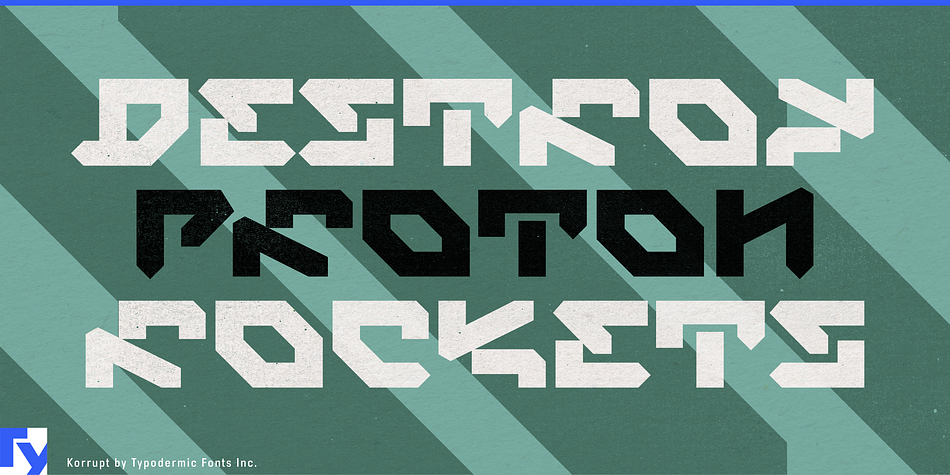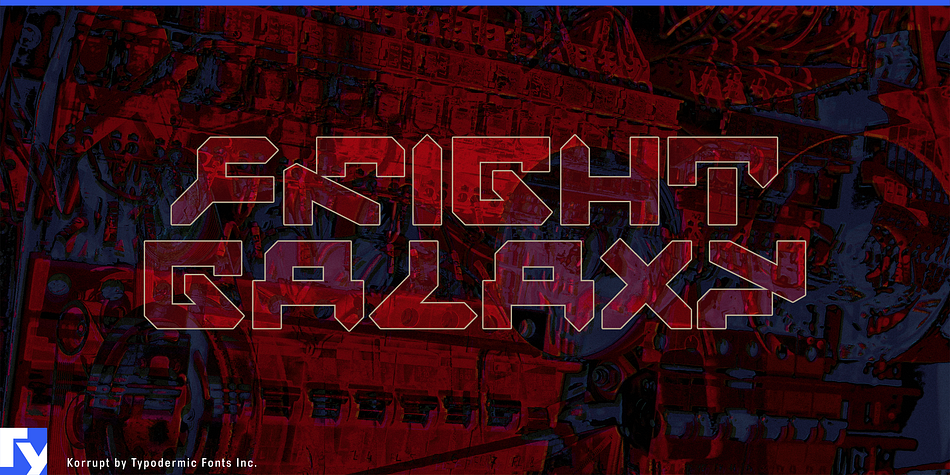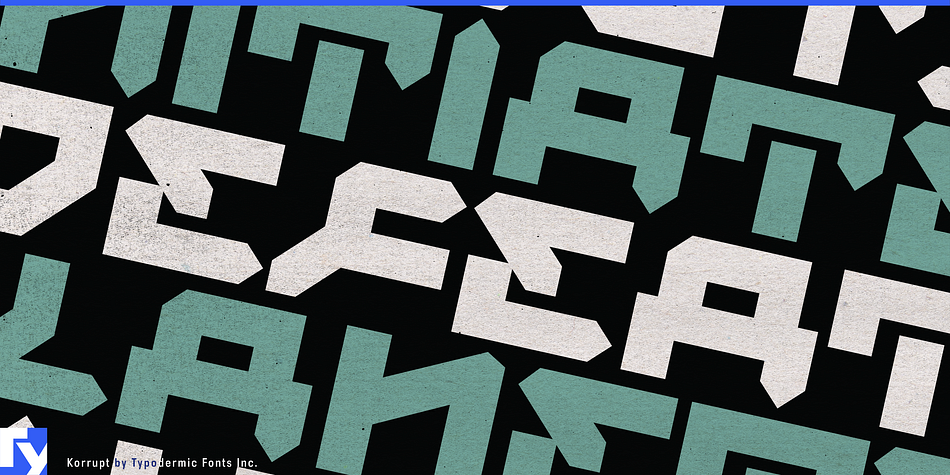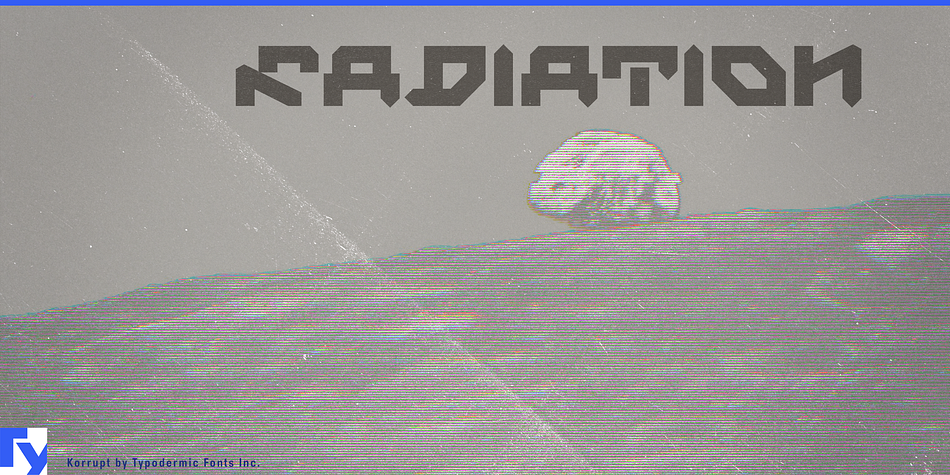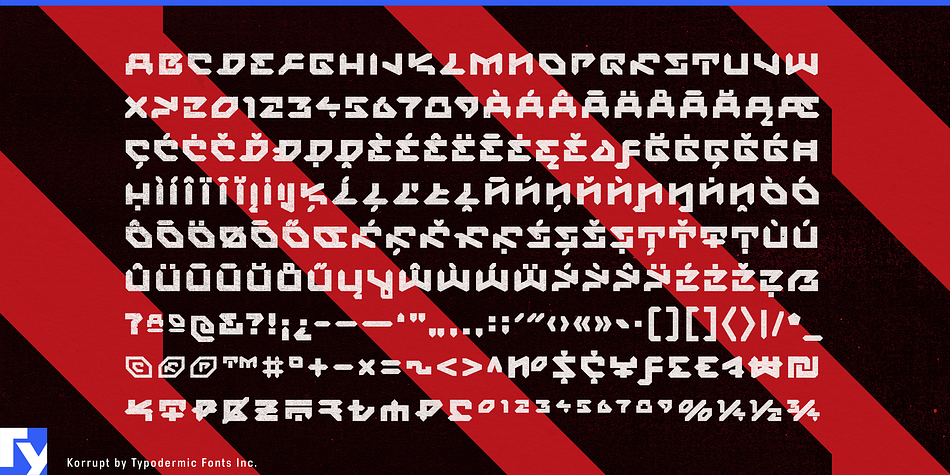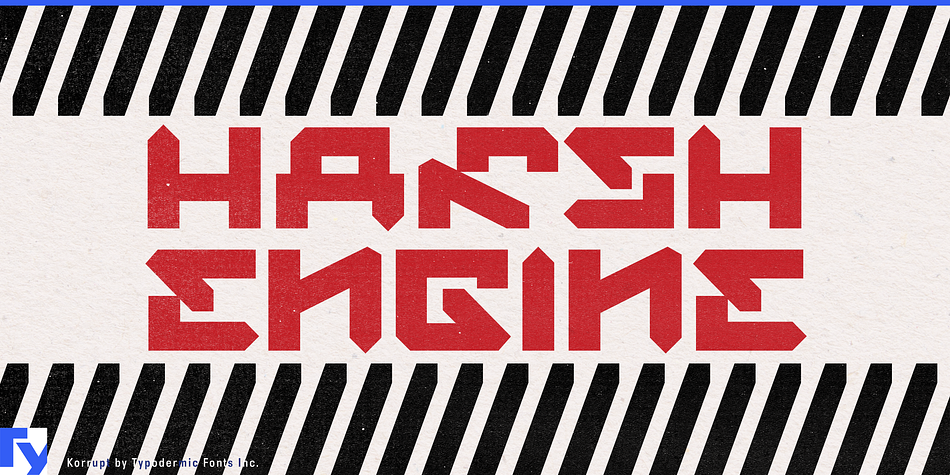
Designed by Ray Larabie, Korrupt is a display font family published by Typodermic Fonts Inc.
Korrupt is an alien, antihumanist typeface from the future. Bizarre, conflicting angles conjure a malevolent post-singularity metadystopia. Traditional letterforms are pushed aside to make way for an eerie psychedelic apparatus. Korrupt is optimal for nanopunk, post-cyberpunk, biopunk and other twisted science fiction themes.